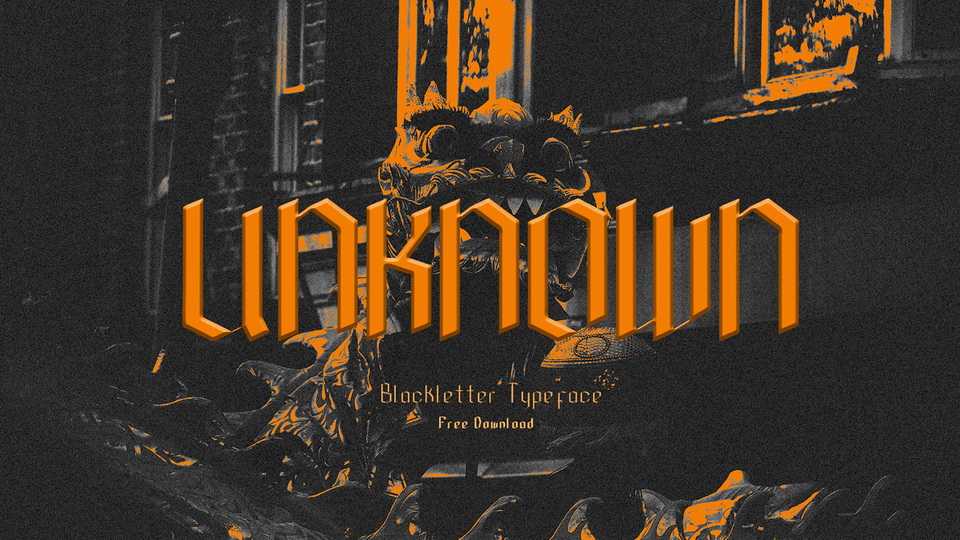
Download Unknown typeface, a blackletter font family with two styles based on a geometric form with triangular shapes. Unknown will be great for posters, album artworks and other display uses.
Designer: Karl Miguel Cabuguas